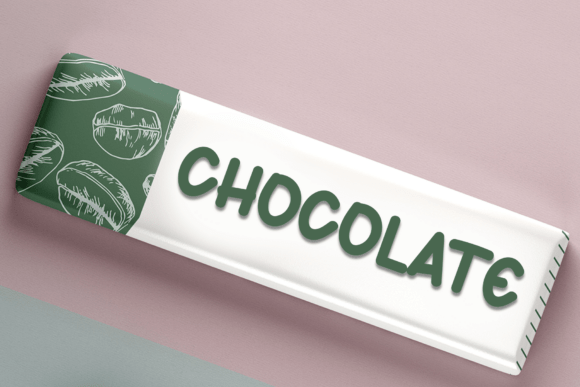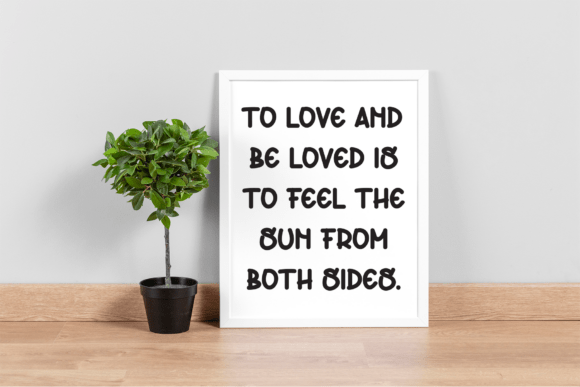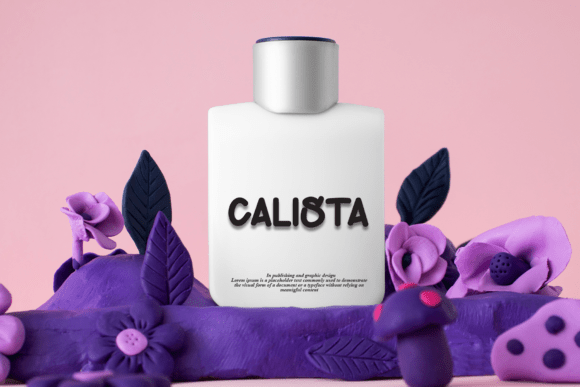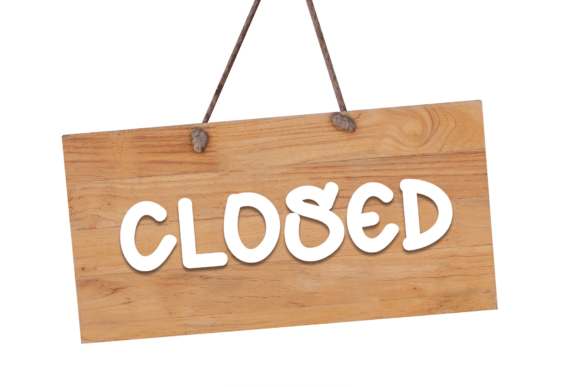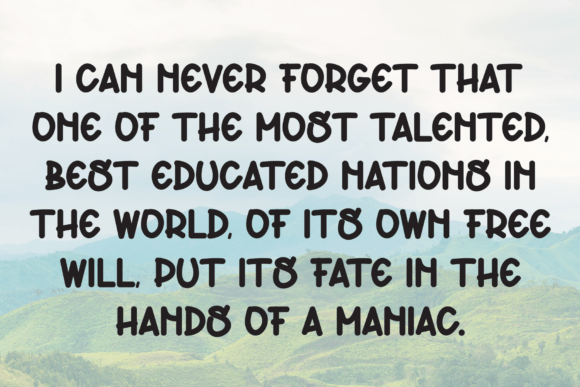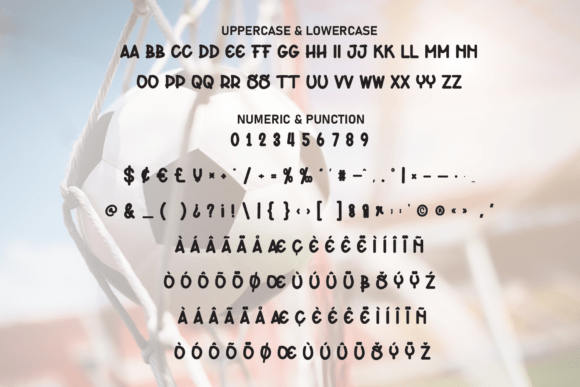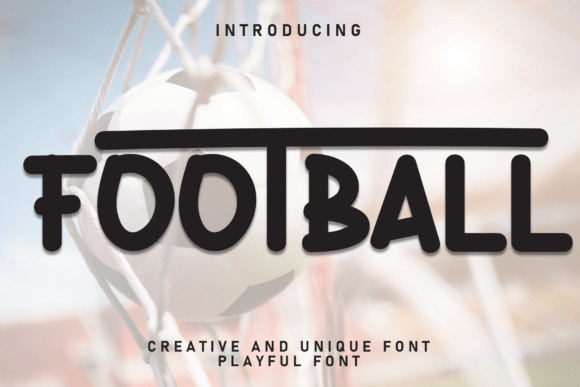
Introducing Football Font: The Perfect Choice for Fun and Relaxation
Are you looking for a font that embodies the spirit of fun and relaxation? Look no further than Football Font, a neat and casual display font that’s perfect for a variety of creative projects. With its clean lines and easygoing vibe, this cheerful typeface is ideal for summer posters, event flyers, and playful branding.
What is Football Font?
Football Font is a display font designed to bring a breezy, laid-back feel to any creative project or message. Its clean lines and simple shapes make it easy to read and understand, while its casual vibe adds a touch of fun and playfulness. Whether you’re designing a poster, flyer, or social media graphic, Football Font is the perfect choice for adding a relaxed and carefree feel to your work.
Key Features of Football Font
- Clean Lines: Football Font features clean lines and simple shapes, making it easy to read and understand.
- Easygoing Vibe: The font’s casual vibe adds a touch of fun and playfulness to any creative project.
- Perfect for Summer Posters: Football Font is ideal for summer posters, event flyers, and playful branding.
- Versatile: The font can be used for a variety of creative projects, from digital graphics to print materials.
Best Uses for Football Font
Football Font is a versatile font that can be used for a variety of creative projects. Here are some of the best uses for this cheerful typeface:
- Summer Posters: Football Font is perfect for creating eye-catching summer posters that capture the spirit of fun and relaxation.
- Event Flyers: The font’s easygoing vibe makes it ideal for event flyers, such as music festivals, beach parties, and outdoor concerts.
- Playful Branding: Football Font can be used for playful branding, such as logos, packaging, and advertising materials.
- Social Media Graphics: The font’s clean lines and simple shapes make it perfect for social media graphics, such as Instagram posts and Facebook graphics.
Tips for Using Football Font
Here are some tips for using Football Font in your creative projects:
- Use it for Headlines: Football Font is perfect for headlines and titles, where its clean lines and easygoing vibe can make a big impact.
- Pair it with Other Fonts: The font can be paired with other fonts to create a unique and interesting look.
- Experiment with Colors: Football Font looks great in a variety of colors, from bright and bold to pastel and soft.
- Keep it Simple: The font’s simplicity is one of its strengths, so keep your design simple and clean to let the font shine.
Football Font is a cheerful and versatile font that’s perfect for adding a fun and relaxed feel to any creative project. With its clean lines, easygoing vibe, and playful spirit, this font is ideal for summer posters, event flyers, and playful branding. Whether you’re a designer, craft, or DIY enthusiast, Football Font is a great choice for any project that needs a breezy and laid-back feel.